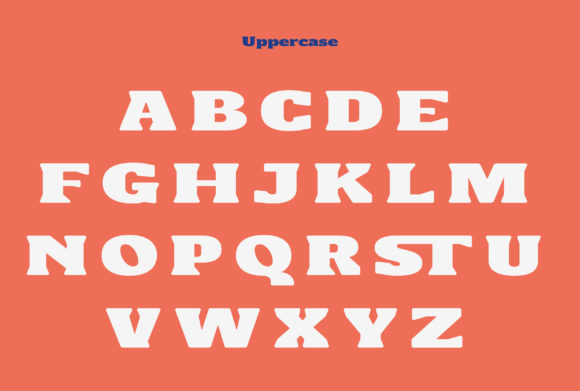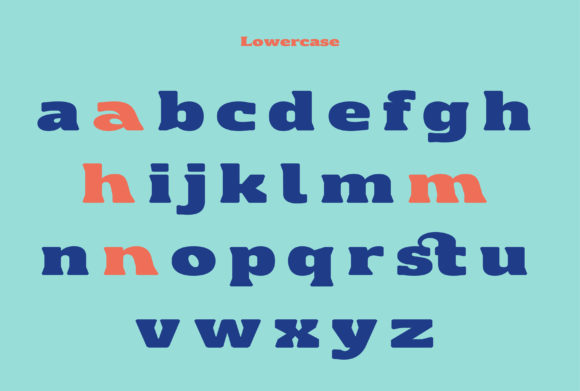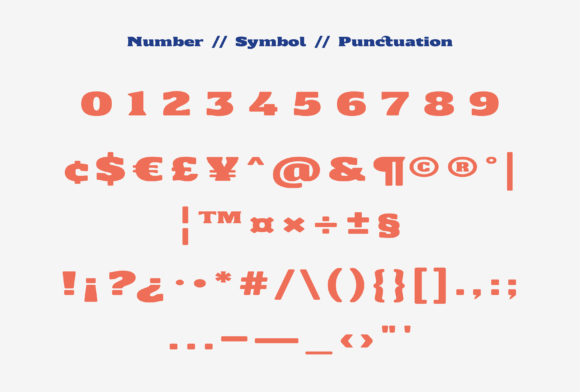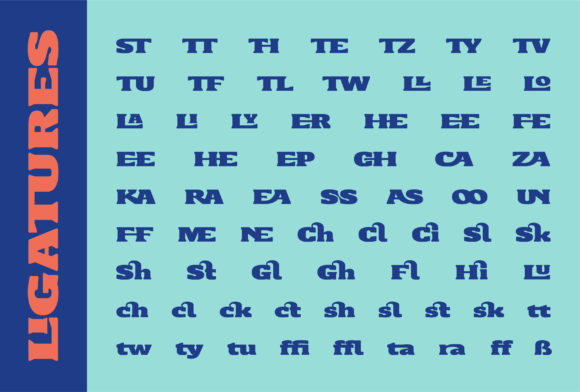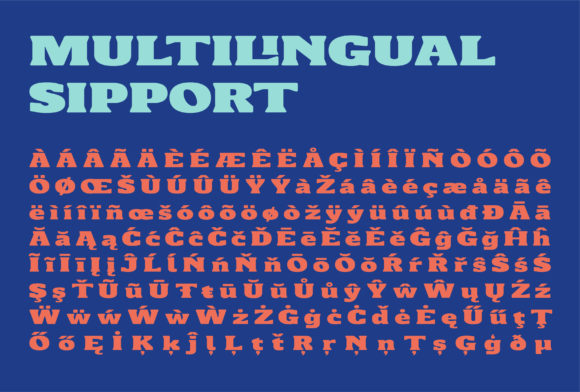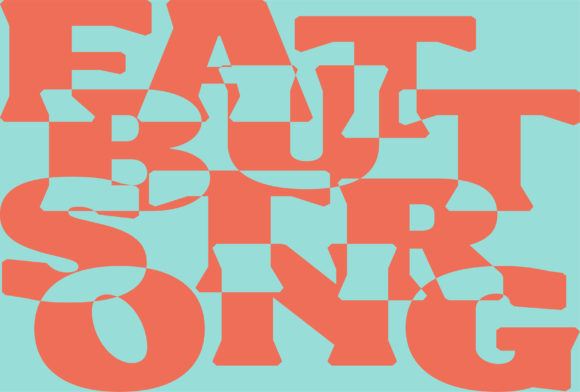
Introducing AO Maverix Font: The Ultimate Display Typeface for Modern Sports Culture
In the world of sports, bold statements and dynamic displays are key to capturing the attention of fans and enthusiasts. For designers and crafters looking to create stunning visuals that embody the spirit of modern sports, AO Maverix Font is here to revolutionize your creative process. Inspired by the strong and spirited culture of modern sports, AO Maverix is a new bold display typeface designed specifically for dynamic displays in sports such as Football, Rugby, Marathon, and more.
The Birth of AO Maverix Font
AO Maverix Font was born out of a passion for sports and a desire to create a typography that resonates with its energetic and competitive vibe. The creators aimed to develop a font that not only captures the essence of modern sports culture but also provides designers with a versatile tool for their creative projects. Whether you’re working on a branding campaign for a sports event, a logo for a sports apparel company, or social media graphics for a sports team, AO Maverix Font is designed to make your designs stand out.
Key Features of AO Maverix Font
AO Maverix Font boasts several key features that make it an ideal choice for designers and crafters:
- Bold and Dynamic Design: The font features bold lines and dynamic shapes, making it perfect for creating eye-catching displays that demand attention.
- Sports Culture Inspiration: Inspired by the spirited and competitive nature of modern sports, AO Maverix Font embodies the energy and passion of sports culture.
- Versatility: From Football and Rugby to Marathon and beyond, AO Maverix Font is versatile enough to be used across various sports and design projects.
- Ease of Use: The font is designed to be user-friendly, making it easy for designers of all skill levels to incorporate into their projects.
Applications of AO Maverix Font
The applications of AO Maverix Font are vast and varied, catering to a wide range of design needs within the sports industry and beyond:
- Sports Event Branding: Create memorable and impactful branding for sports events, including logos, posters, and digital media.
- Sports Apparel Design: Design eye-catching logos and typography for sports apparel companies, ensuring your brand stands out on and off the field.
- Social Media Graphics: Elevate your social media presence with dynamic graphics and typography that capture the spirit of sports.
- Team Logos and Merchandise: Develop unique and compelling logos and merchandise for sports teams, enhancing their brand identity.
Why Choose AO Maverix Font?
Choosing AO Maverix Font for your design projects comes with several advantages:
- Unique and Memorable Designs: With AO Maverix Font, create designs that are not only visually stunning but also memorable and impactful.
- Time-Saving: The font’s versatility and ease of use save you time, allowing you to focus on other creative aspects of your project.
- Professional Edge: Elevate your designs with a professional and polished look that AO Maverix Font provides.
| Font Name | AO Maverix Font |
| Author | OwunStudio |
AO Maverix Font is a game-changer for designers and crafters looking to infuse their projects with the dynamic and spirited essence of modern sports culture. Its bold design, versatility, and ease of use make it an invaluable tool for creating stunning displays across various sports and design projects. Whether you’re a seasoned designer or just starting out, AO Maverix Font is your key to unlocking creative possibilities that engage, inspire, and leave a lasting impression.